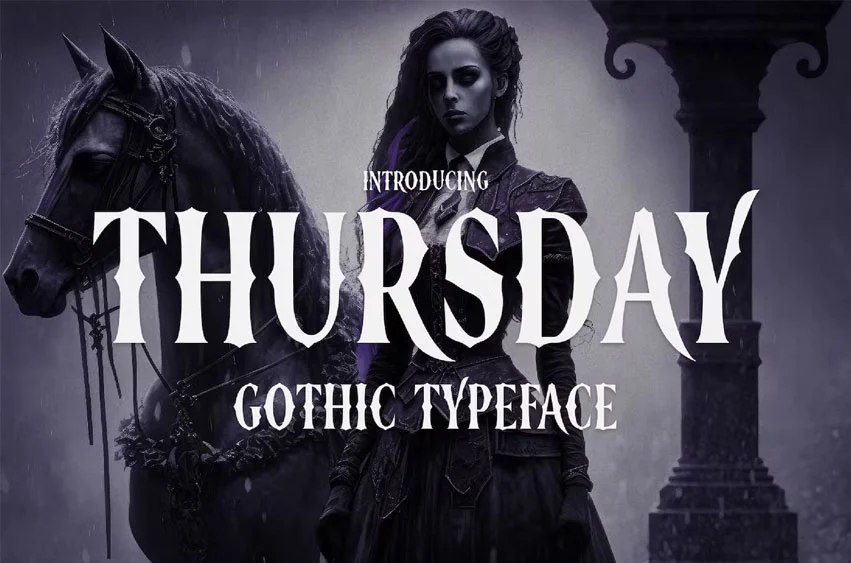
Thursday Font
Thursday Font is a gothic serif typeface. Each letter is delicately crafted, creating a stunning and dramatic design that’s perfect for conveying a sense of mystery and sophistication. With its intricate details and beautiful serifs, Thursday is perfect for a wide range of projects. You can use it for book covers, movie titles, headlines, magazines, thumbnails. posters, the list goes on and on.